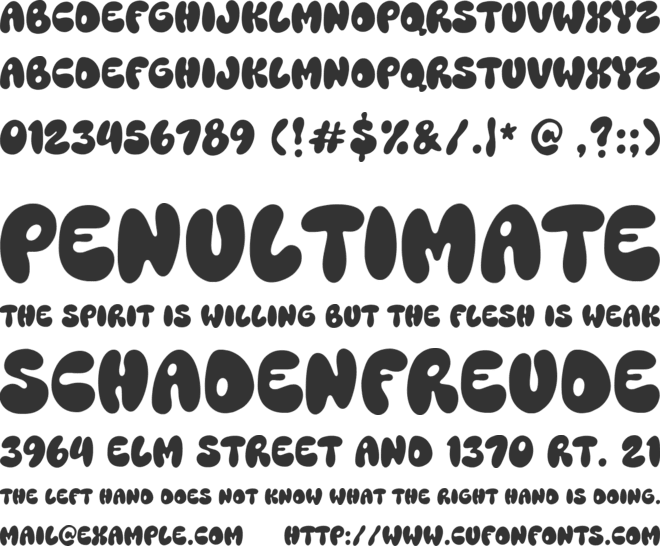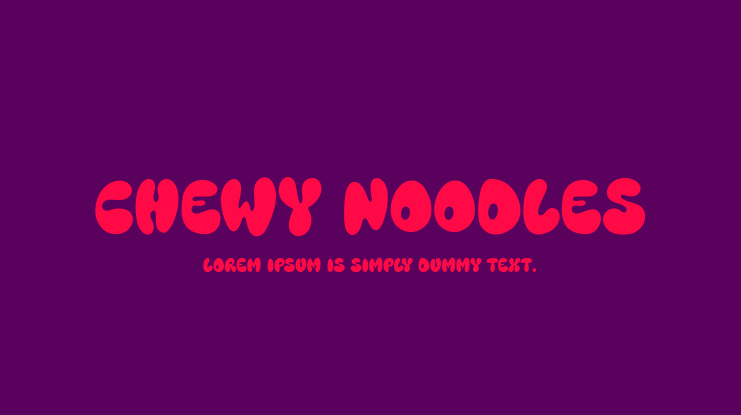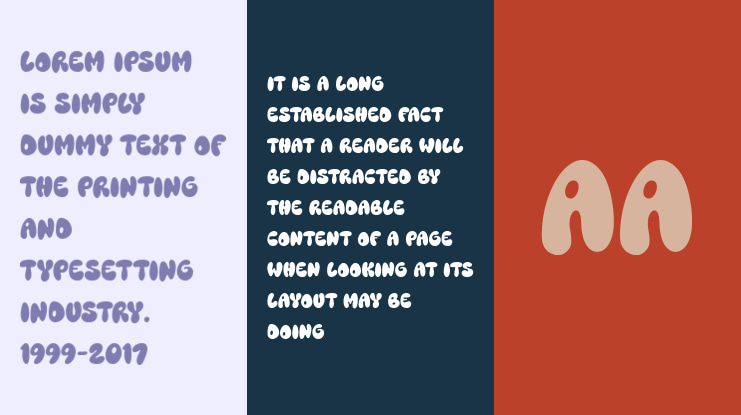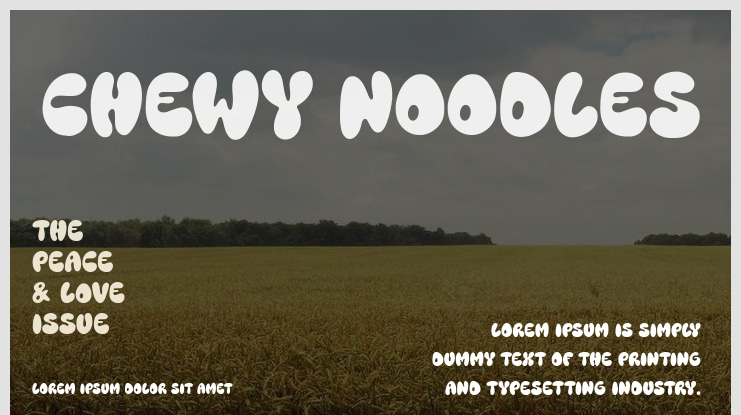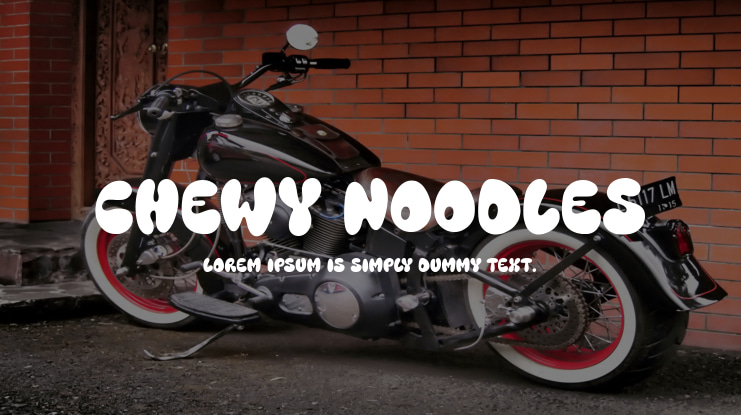
Introducing the Groovy Font Chewy Noodles by Timurtype Studio!
Chewy Noodles is a retro and vibrant font choice for your design projects. Featuring funky and playful letterforms, this font captures the essence of the groovy era. Its bold and exaggerated strokes give it a lively and energetic aesthetic, perfect for adding a nostalgic touch to your branding materials, posters, and album covers. Whether you're going for a vintage psychedelic look or a fun and lighthearted vibe, Chewy Noodles offers versatility and charm. Embrace the groovy energy of this font and transport your designs back to the colorful and vibrant era of the past.
Features: - Full set of standard alphabet and punctuation.